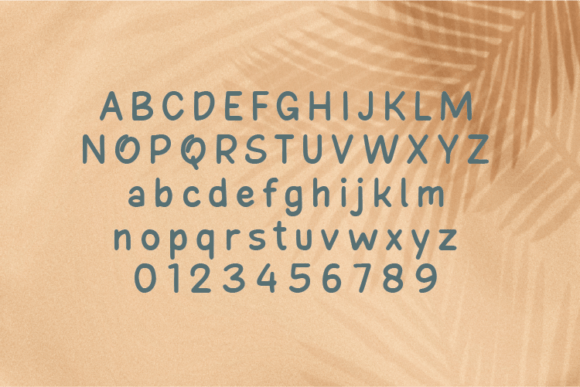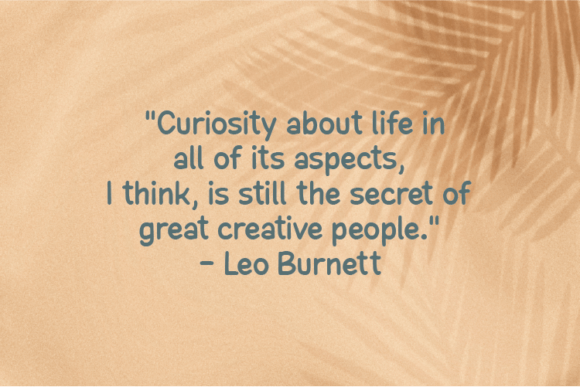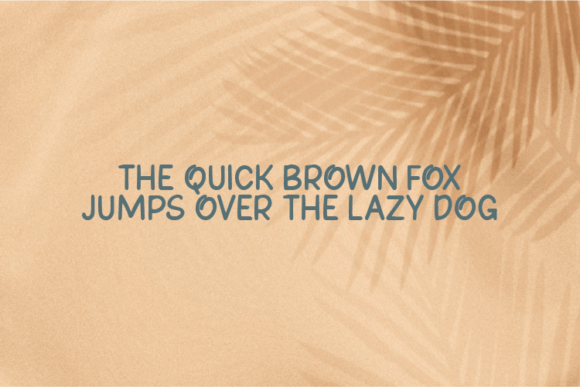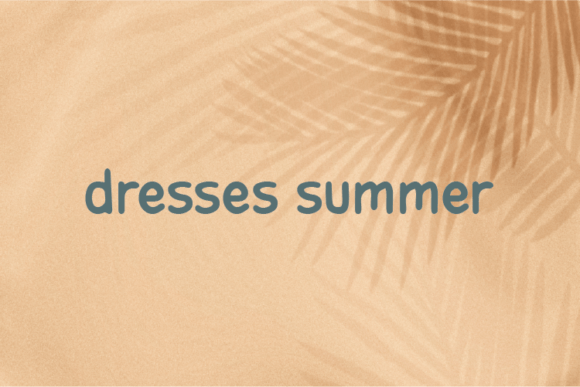
Dresses Summer Font: A Unique and Versatile Sans Serif Font for Your Design Needs
Are you a designer or crafter looking for a font that can add a touch of elegance and simplicity to your designs? Look no further than Dresses Summer Font, a natural sans serif font that is sure to impress. In this article, we’ll take a closer look at what makes Dresses Summer Font so unique and how you can use it to elevate your designs.
What is Dresses Summer Font?
Dresses Summer Font is a sans serif font that has been carefully crafted without changing a single node in each character’s indentation. This means that the font has a unique and natural look that sets it apart from other sans serif fonts. The font is perfect for a wide range of design applications, including quotes, notes, tees, and any product design.
What Makes Dresses Summer Font So Unique?
The unique feature of Dresses Summer Font lies in its natural and unaltered character indentation. This means that each character has a distinctive and organic look that is not found in other fonts. The font’s creator has carefully crafted each character to ensure that it is legible and easy to read, while also maintaining its unique and natural look.
Benefits of Using Dresses Summer Font
There are many benefits to using Dresses Summer Font in your designs. Here are a few:
- Unique and distinctive look: Dresses Summer Font has a unique and natural look that sets it apart from other fonts.
- Legible and easy to read: Despite its unique look, Dresses Summer Font is still legible and easy to read, making it perfect for body text and headings.
- Versatile: Dresses Summer Font can be used for a wide range of design applications, including quotes, notes, tees, and any product design.
- Elegant and simple: Dresses Summer Font has an elegant and simple look that makes it perfect for designs that require a touch of sophistication.
How to Use Dresses Summer Font in Your Designs
Dresses Summer Font is a versatile font that can be used in a wide range of design applications. Here are a few ideas to get you started:
- Quotes and typography: Use Dresses Summer Font to create beautiful quotes and typography designs.
- T-shirts and apparel: Dresses Summer Font is perfect for designing t-shirts and other apparel.
- Product design: Use Dresses Summer Font to create labels, packaging, and other product designs.
- Notes and journals: Dresses Summer Font is perfect for designing notes and journals.
Tips for Getting the Most Out of Dresses Summer Font
Here are a few tips for getting the most out of Dresses Summer Font:
- Experiment with different sizes and colors: Dresses Summer Font looks great in a variety of sizes and colors, so don’t be afraid to experiment.
- Pair with other fonts: Dresses Summer Font pairs well with other fonts, so try pairing it with a serif font for a contrasting look.
- Use it for body text and headings: Dresses Summer Font is legible and easy to read, making it perfect for body text and headings.
Dresses Summer Font is a unique and versatile sans serif font that is perfect for designers and crafters looking for a touch of elegance and simplicity in their designs. With its natural and unaltered character indentation, Dresses Summer Font is sure to impress. Whether you’re designing quotes, notes, tees, or any product design, Dresses Summer Font is a great choice.
So why not give Dresses Summer Font a try today and see how it can elevate your designs?